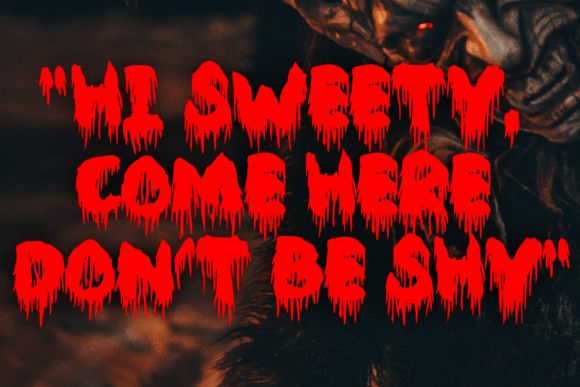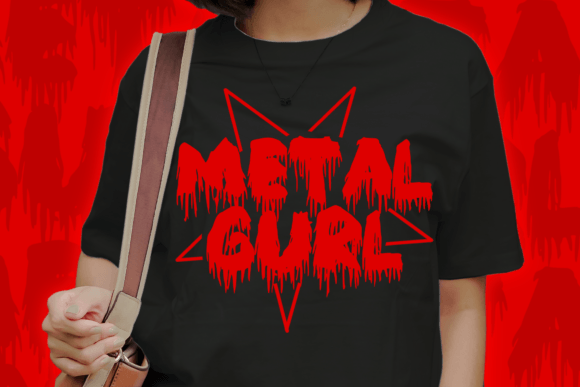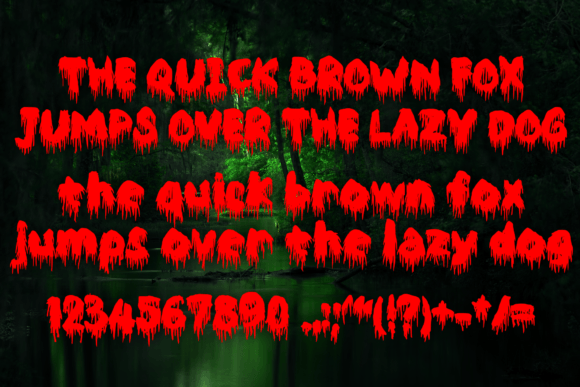
Hairy Blood Font: Unleash the Horror and Halloween Vibes in Your Designs
Are you looking for a font that can add a spooky touch to your designs? Do you want to create Halloween-themed projects that will leave a lasting impression on your audience? Look no further than the Hairy Blood Font, a cool ink drips font with bold characteristics inspired by vintage horror movies, comics, and Metal music.
What is Hairy Blood Font?
Hairy Blood Font is a unique and eye-catching font that is perfect for horror and Halloween-themed designs. Its bold and drippy texture is reminiscent of vintage horror movies, comics, and Metal music, making it a great addition to any design project that requires a spooky touch.
Key Features of Hairy Blood Font
- Bold and Drippy Texture: The Hairy Blood Font features a bold and drippy texture that is perfect for creating eye-catching designs.
- Inspired by Vintage Horror Movies, Comics, and Metal Music: The font’s design is inspired by vintage horror movies, comics, and Metal music, making it a great fit for horror and Halloween-themed projects.
- Perfect for Horror and Halloween-themed Needs: Whether you’re creating designs for Halloween, horror movies, or haunted houses, the Hairy Blood Font is the perfect choice.
- Versatile and Fun to Use: The font is versatile and fun to use, making it perfect for a wide range of design projects, from t-shirts and clothing to scary book designs and Halloween party needs.
Uses of Hairy Blood Font
The Hairy Blood Font is perfect for a wide range of design projects, including:
- T-shirts and Clothing: Add a spooky touch to your t-shirts, hoodies, and other clothing items with the Hairy Blood Font.
- Scary Book Designs: Create eye-catching book covers and interior designs for horror and thriller books.
- Halloween Party Needs: Use the Hairy Blood Font to create spooky invitations, posters, and banners for Halloween parties.
- Greeting Cards: Create unique and spooky greeting cards for Halloween and other occasions.
- Stickers and Posters: Use the Hairy Blood Font to create eye-catching stickers and posters for horror and Halloween-themed events.
- Banners: Create spooky banners for Halloween parties, haunted houses, and other events.
Why Choose Hairy Blood Font?
There are many reasons why you should choose the Hairy Blood Font for your design projects. Here are a few:
- Unique and Eye-catching: The Hairy Blood Font is a unique and eye-catching font that will add a spooky touch to your designs.
- High-quality Design: The font is designed with high-quality and precision, ensuring that it looks great in any design project.
Tips for Using Hairy Blood Font
Here are a few tips for using the Hairy Blood Font in your design projects:
- Use it with Dark Colors: The Hairy Blood Font looks great with dark colors, so try using it with black, red, or purple.
- Experiment with Different Sizes: Experiment with different font sizes to create unique and eye-catching designs.
- Combine it with Other Fonts: Combine the Hairy Blood Font with other fonts to create interesting and unique designs.
- Use it for Headlines and Titles: The Hairy Blood Font is perfect for headlines and titles, so try using it to add a spooky touch to your designs.
The Hairy Blood Font is a unique and eye-catching font that is perfect for horror and Halloween-themed designs. Its bold and drippy texture is reminiscent of vintage horror movies, comics, and Metal music, making it a great addition to any design project that requires a spooky touch. With its versatility, ease of use, and affordability, the Hairy Blood Font is a great choice for designers and crafters who want to create spooky and eye-catching designs.